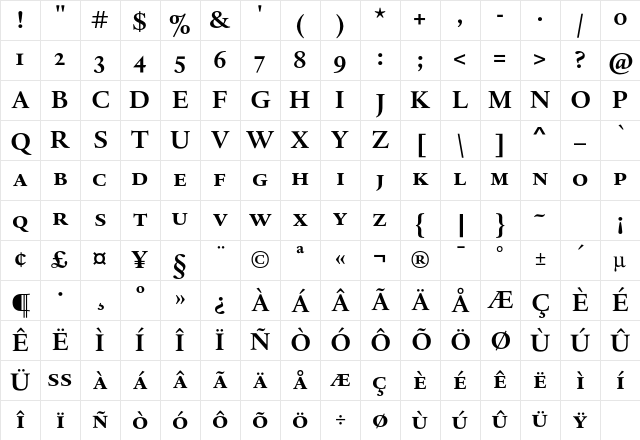
DTLHaarlemmerDCaps Bold
DTLHaarlemmerDCaps Family
Design Context for DTLHaarlemmerDCaps
DTLHaarlemmerDCaps is a composed and adaptable typeface that performs quietly and consistently across a wide range of design contexts. Its bold stroke weight gives it real presence on the page.